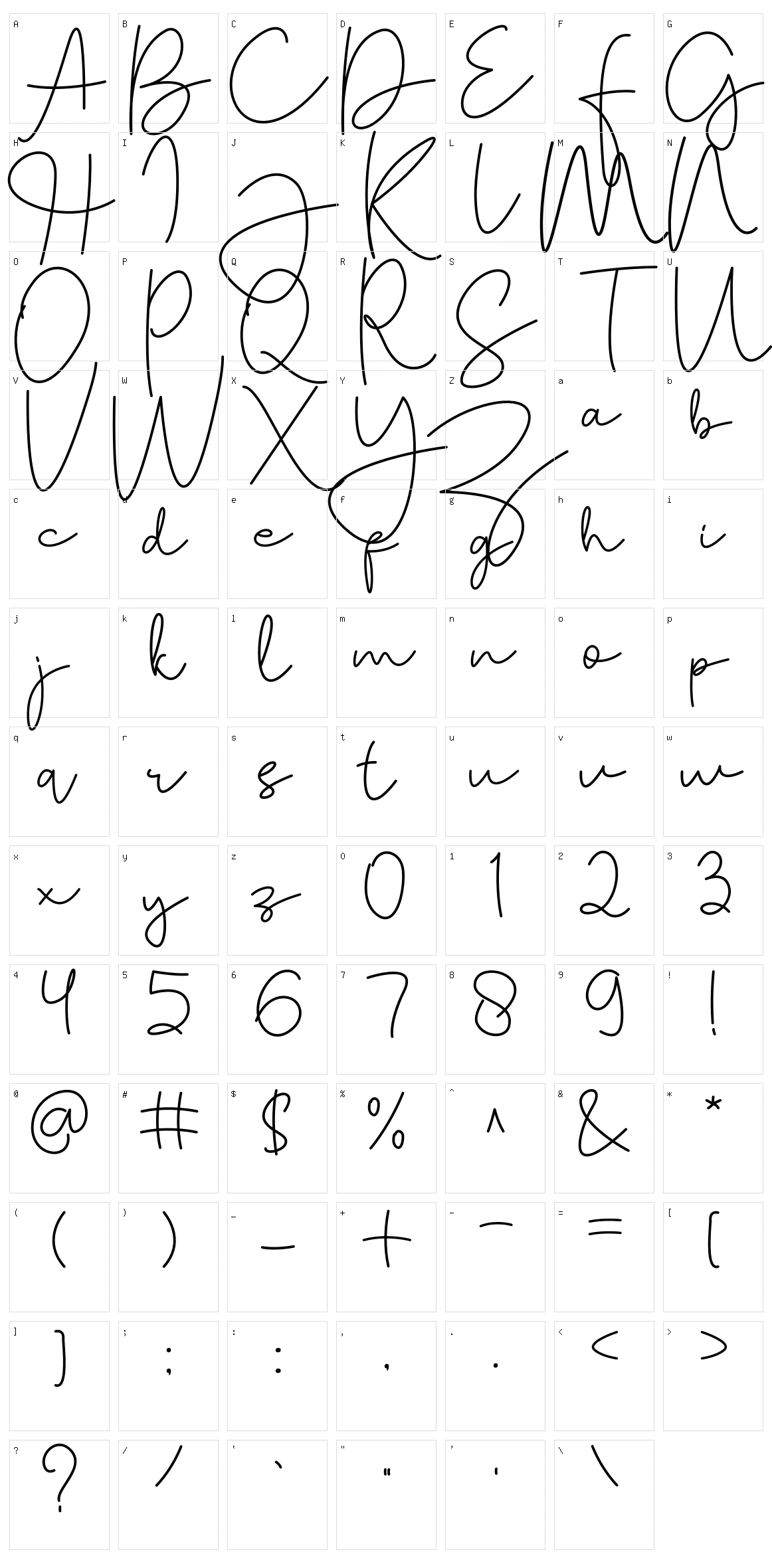
Tallitha a stylish handwritten font - a new modern & fresh script with a handwritten and script style make this font looks cute, elegant, stylish and perfect for any awesome projects that need lettering taste.
Tallitha would perfect for watermark, social media posts, advertisements, logos & branding, invitation, product designs, label, stationery, wedding designs, product packaging, special events or anything that need lettering taste.
Tallitha also includes full set of uppercase and lowercase letters, multilingual symbols, numerals, punctuation. The font has smooth wet ink texture, so would be perfect for all types of printing techniques+you can do embroidery, laser cut, gold foil etc.
Features :
ligature
alternate
multi lingual